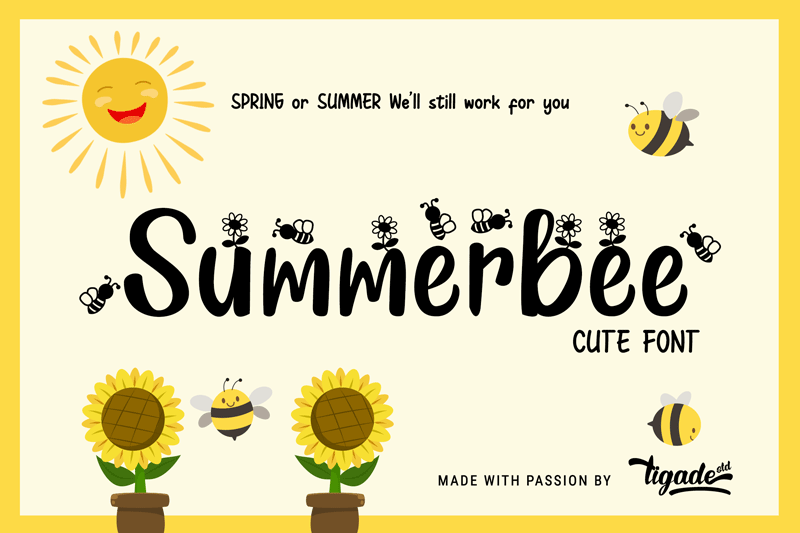
Summerbee. Unlike the name, Bee is actually active in all seasons except winter. This is a cute, happy, sweet font that suitable for Seasonal theme such as Spring and Summer. Not only that, branding with Bee and flower theme would also be fit. It comes with some alternate glyphs that are accessible via All Alternate (easy access by using Adobe Illustrator or Photoshop). Which can enhance your design to another level! Great for any (not limited to) Spring or Summer design. It is suitable for Logo, Cards, Branding, Social Media, Youtube Thumbnail, Advertisement, Posters, any many others. ========= This font is FREE for PERSONAL USE ONLY. If you want a commercial license, please purchase it from: https://www.tigadestd.com/shop/ https://www.creativefabrica.com/designer/tigade-std/ref/236068/ We may have promotional Discount Off for our new Customer. Feel free to contact me directly. Thanks! ---------------------------------------------------- We are planning to give out freebies periodically in our website. Please subscribe to get the latest update. https://www.tigadestd.com/ ---------------------------------------------------- BAHASA: Perlu diketahui bahwa font ini GRATIS untuk penggunaan PERSONAL SAJA tanpa melibatkan apapun komersil. Segala aktivitas yang berkaitan dengan menghasilkan value, adalah tidak diperbolehkan. Lisensi bisa dibeli di: More... |